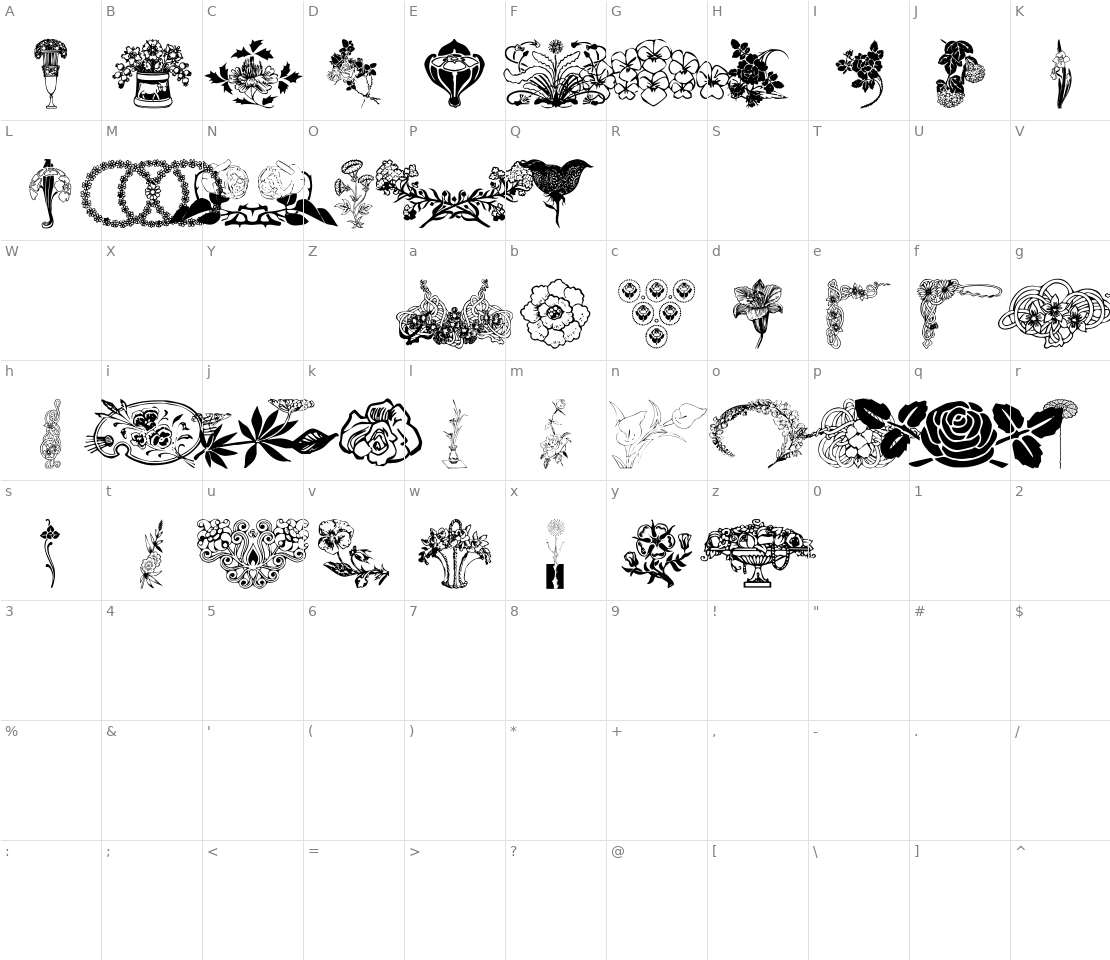
WM Flowers
by WillyMac
WM Flowers is a decorative dingbats-style font from WillyMac where each character maps to a detailed floral illustration rather than a traditional letterform. The botanical drawings have a vintage, hand-engraved quality that feels lifted from a 19th-century field guide. Useful for ornamental borders, invitations, and editorial layouts where you need individual flower motifs without sourcing separate illustrations.